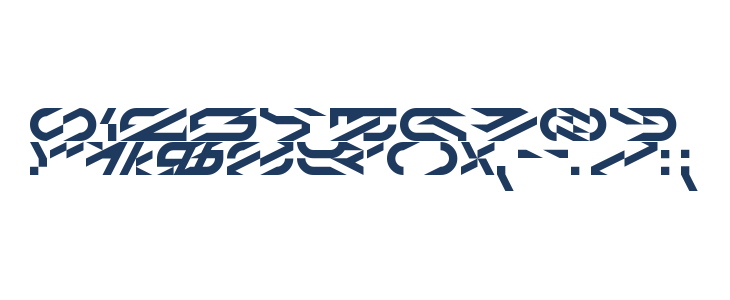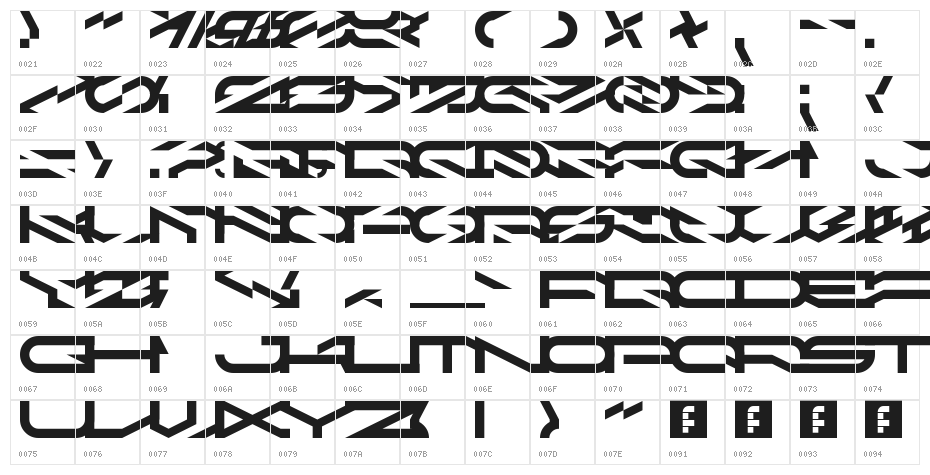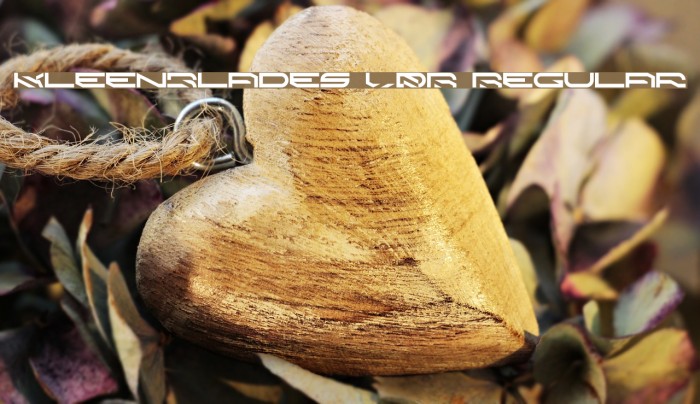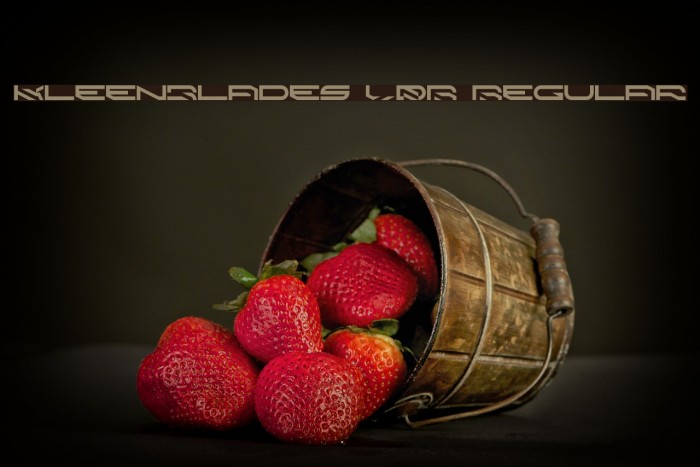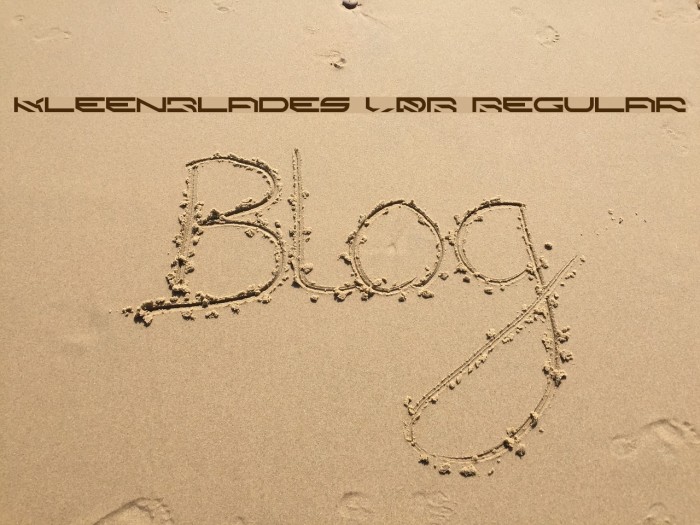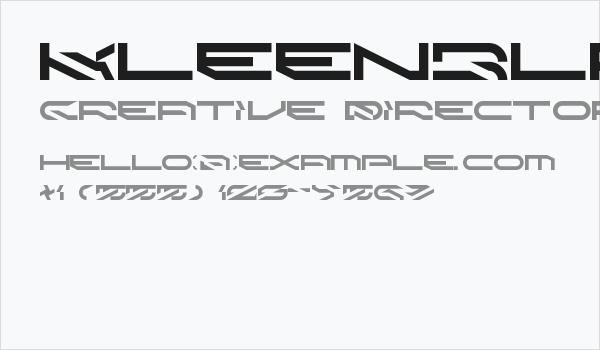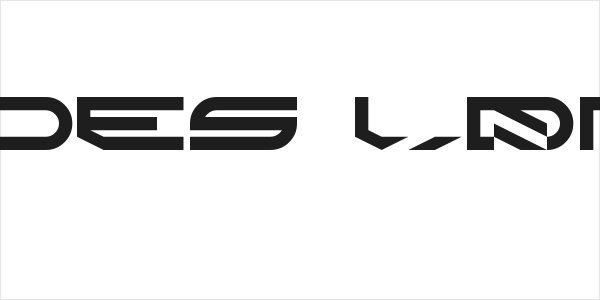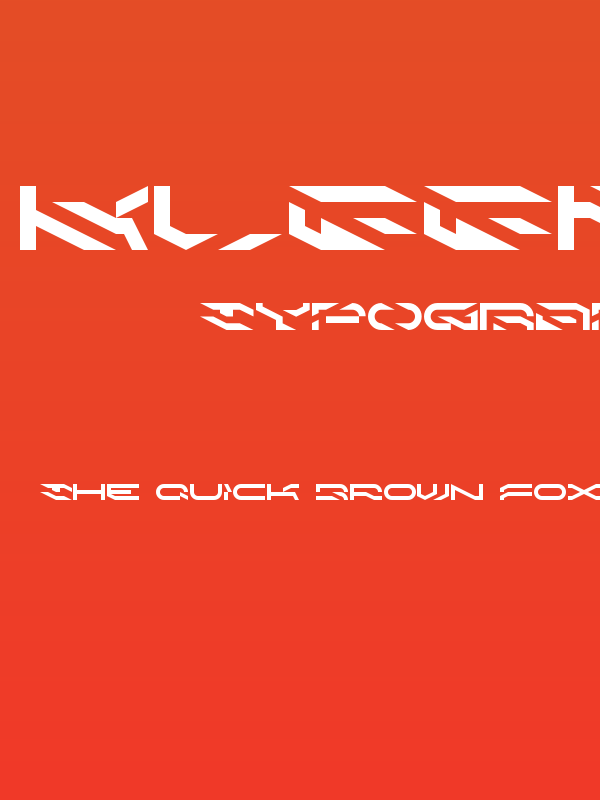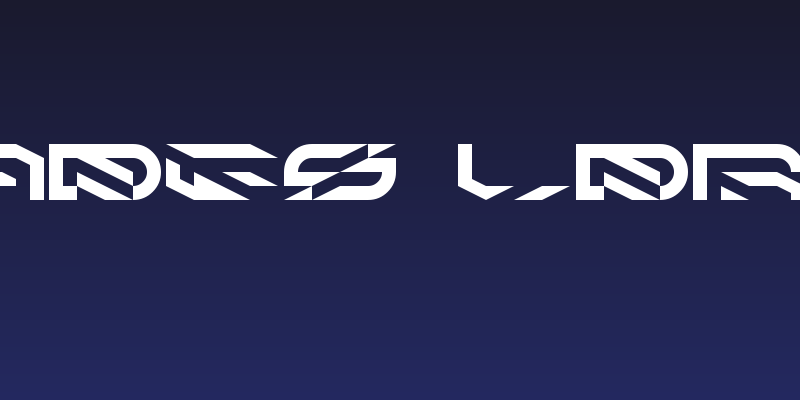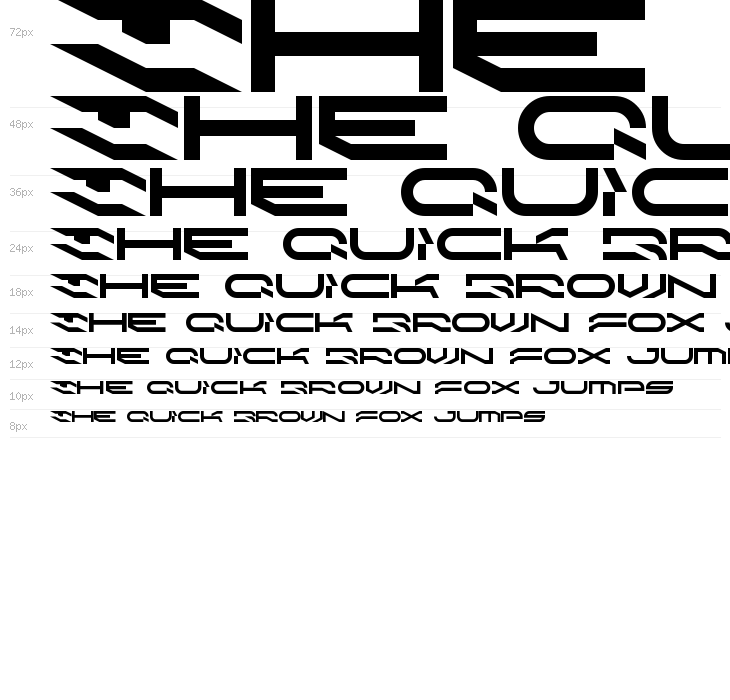
KleenBlades LDR Regular Font
KleenBlades LDR Regular Description
This font features a futuristic and angular design, characterized by sharp edges and geometric shapes. The letters are crafted with a sense of movement and dynamism, giving them a cutting-edge appearance. The uppercase and lowercase letters maintain a consistent style, with bold lines and a unique structure that sets them apart from traditional fonts. The numerals and special characters are designed to match the overall aesthetic, ensuring a cohesive look across all text elements. This font's distinctive style makes it ideal for projects that require a modern and innovative touch.
| Proposed Projects | Ideal for sci-fi themed designs, tech branding, video game titles, and futuristic posters. |